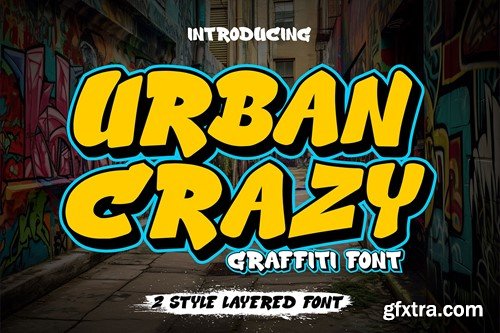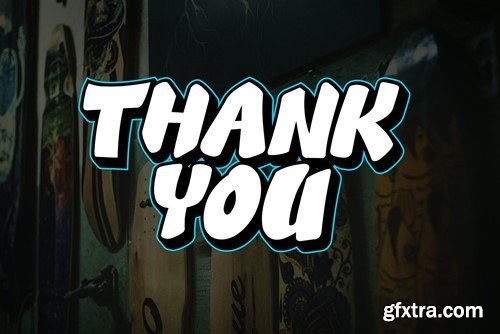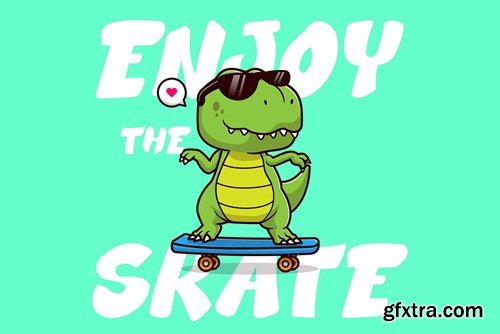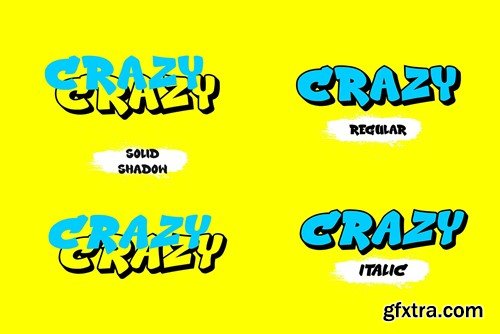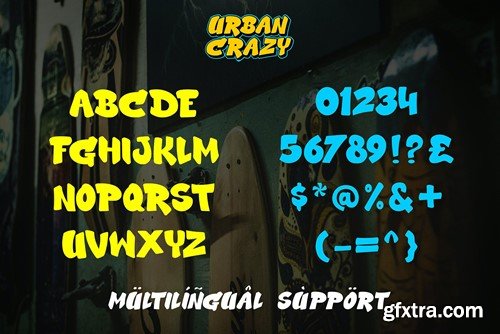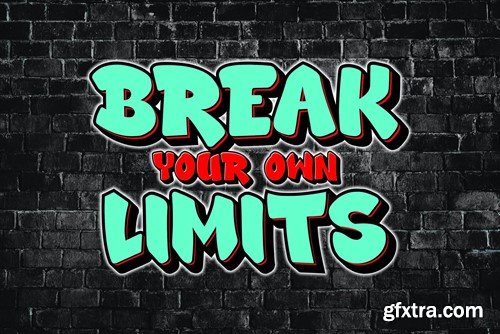
Urban Crazy - 3d Layered Graffiti Font KJWXHXC
Urban Crazy - 3d Layered Graffiti Font
Urban Crazy is a graffiti font that contains several different styles and layers within it. When these styles and layers are properly combined in a design, they can create a three-dimensional (3D) effect on the text. Fonts like this are often used in street art, posters, and other designs that aim to add dimension and depth to their typography.
With Urban Crazy, you have the flexibility to create text with various effects and styles, ranging from simple to highly complex. This allows you to customize the design according to your creative vision.